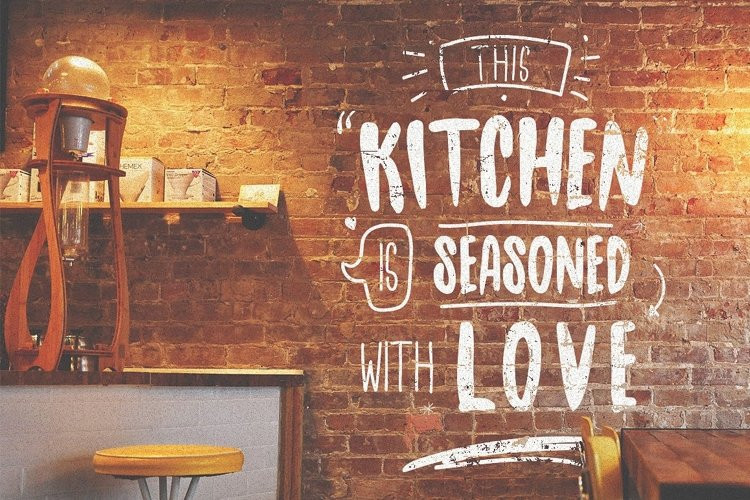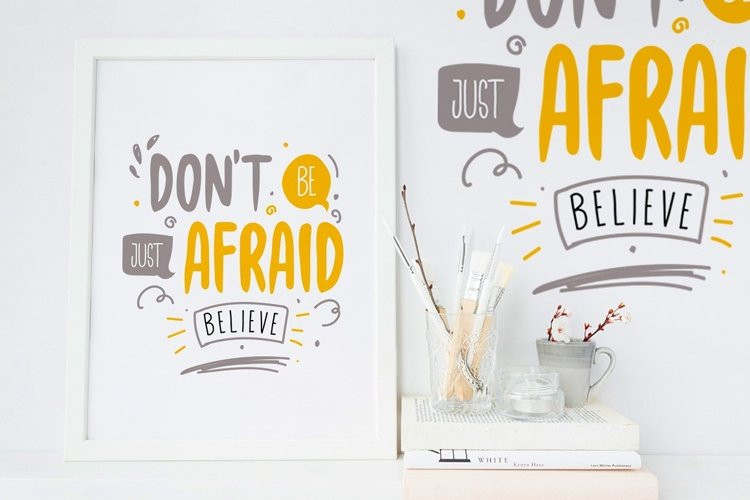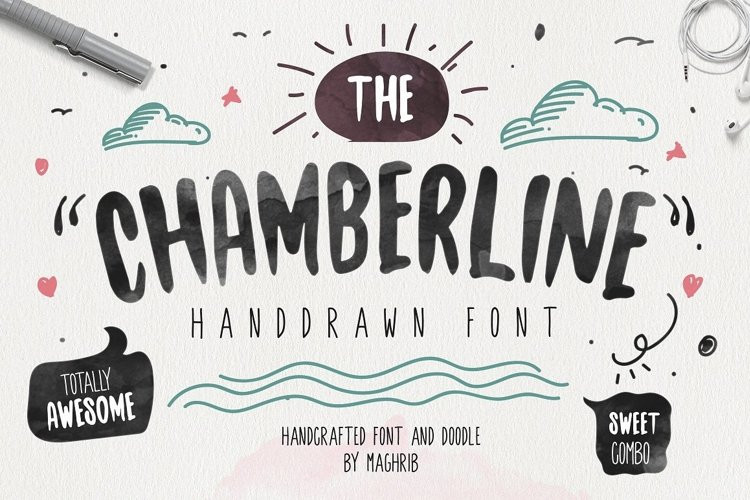
Chamberline Font
Chamberline FontChamberline & doodle vector is a lovely handlettering, It contains three different hand drawn With this set and a little bit of love and care it is possible to create beautiful “handmade” graphics.Chamberlineis optimized to feel not just like a font but like true handlettering.Chamberline is very best choice fonts for : Wedding Invitation, quotes, Posters, Logos, Print Ads, Digital Ads, Promotion Product etc